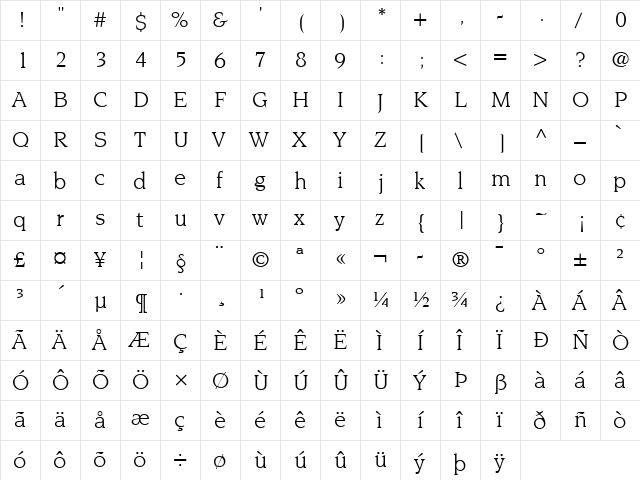
Novarese LT Book Regular
Design Context for Novarese LT Book Typeface
Novarese LT Book takes a measured approach to typography — its balanced proportions and neutral character make it a reliable workhorse for both digital and print work. The delicate stroke weight brings airiness and refinement to layouts.